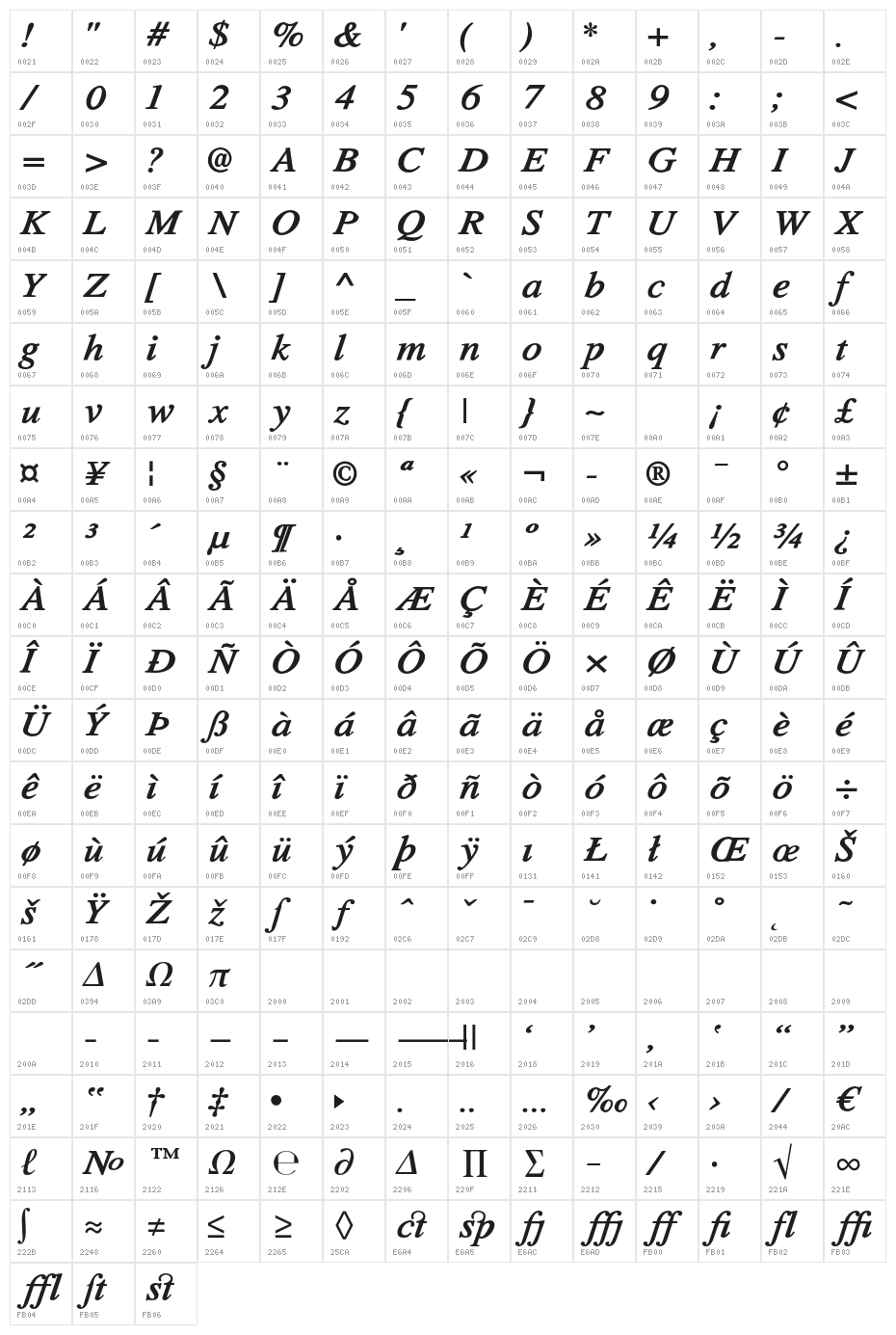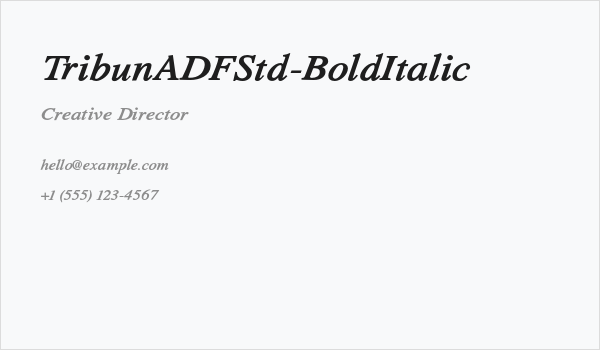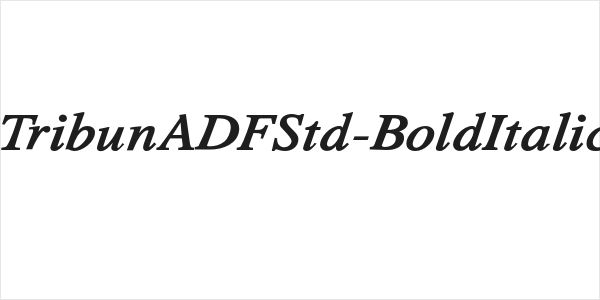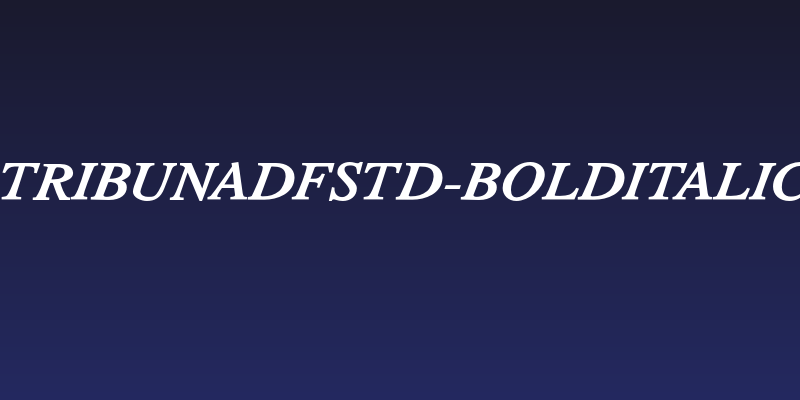
TribunADFStd-BoldItalic Font
TribunADFStd-BoldItalic Description
This font exhibits a classic serif style with a bold and italicized appearance, offering a sense of elegance and tradition. The characters are well-defined with a slight slant, enhancing readability while maintaining a sophisticated look. The uppercase letters are prominent and commanding, while the lowercase letters provide a smooth and flowing contrast. Numerals are clear and balanced, making them suitable for both text and numerical data. The special characters are distinct and harmonize well with the overall design, ensuring versatility in various applications.
Overall StyleClassic
Proposed ProjectsIdeal for editorial design, book covers, formal invitations, and branding materials that require a touch of sophistication.